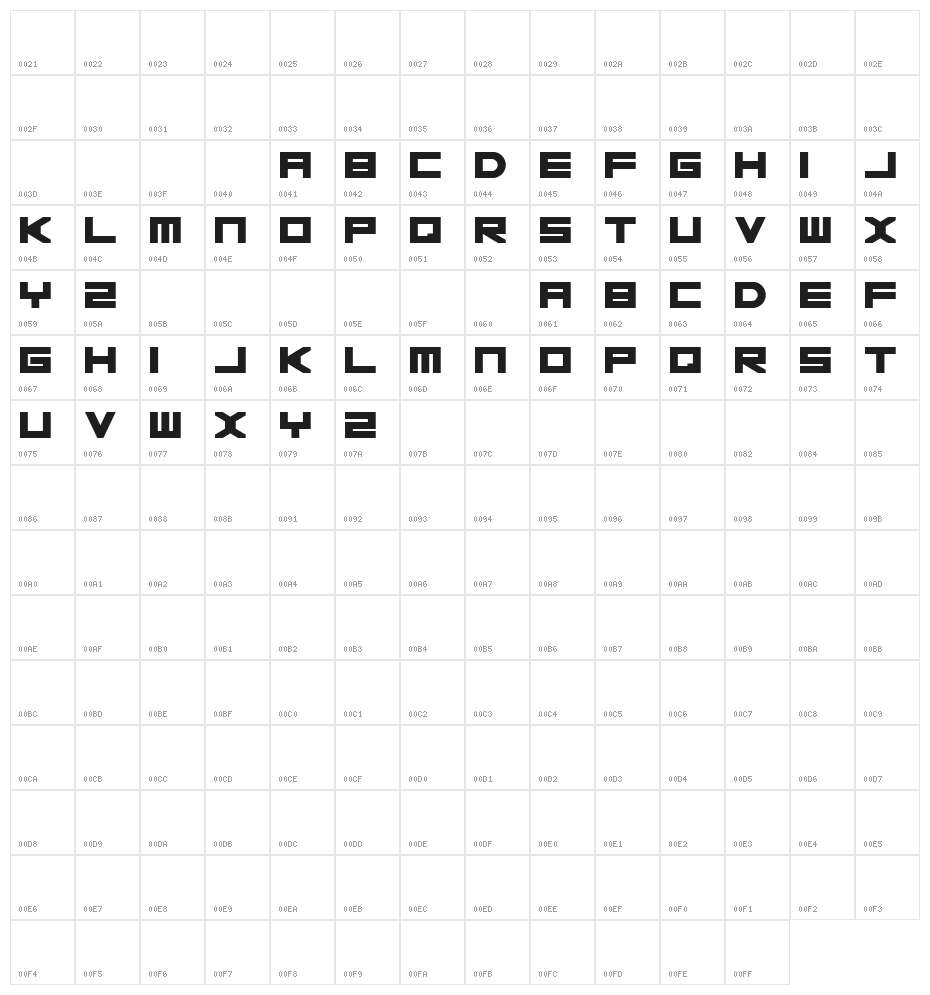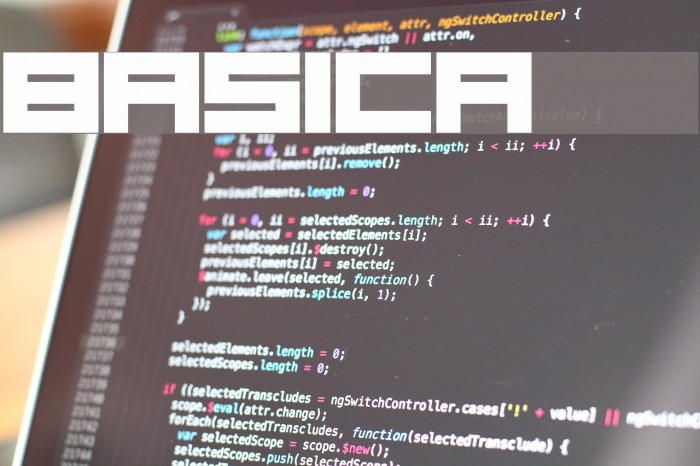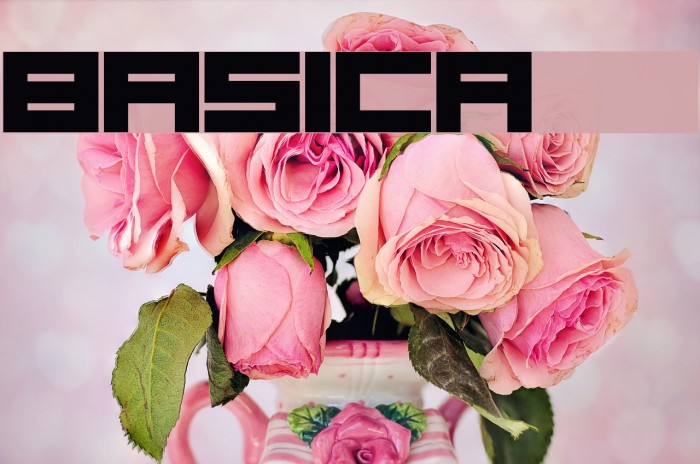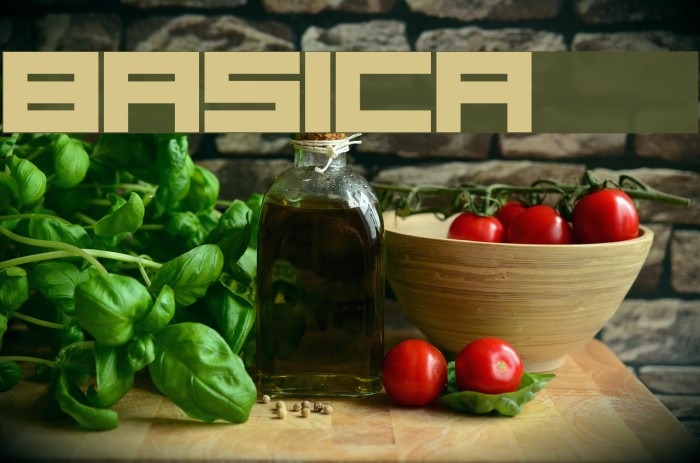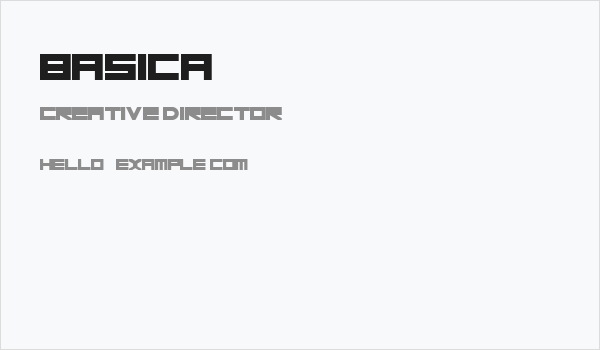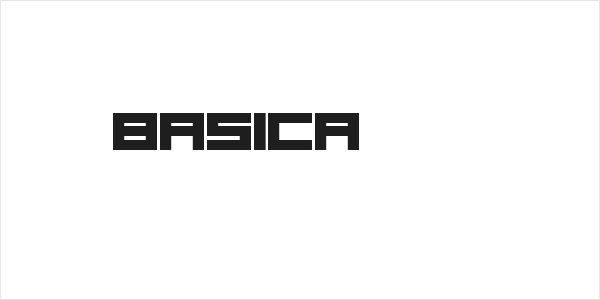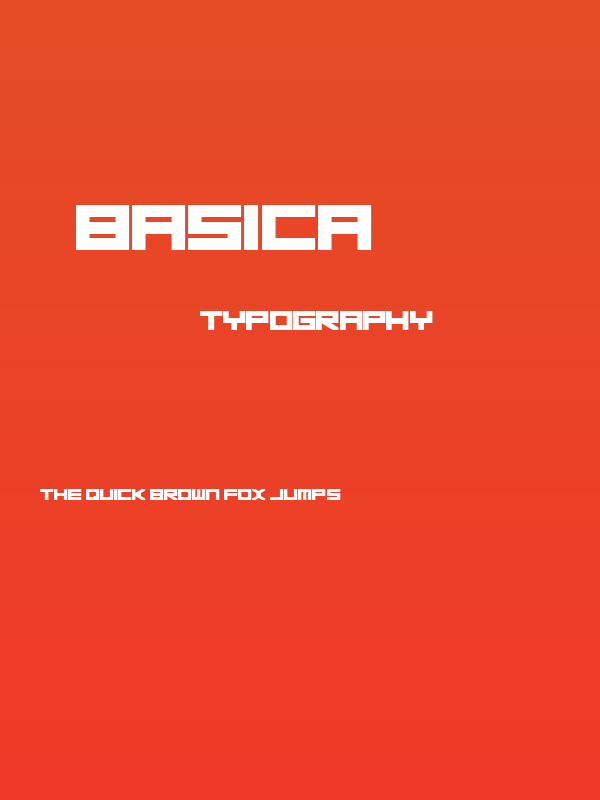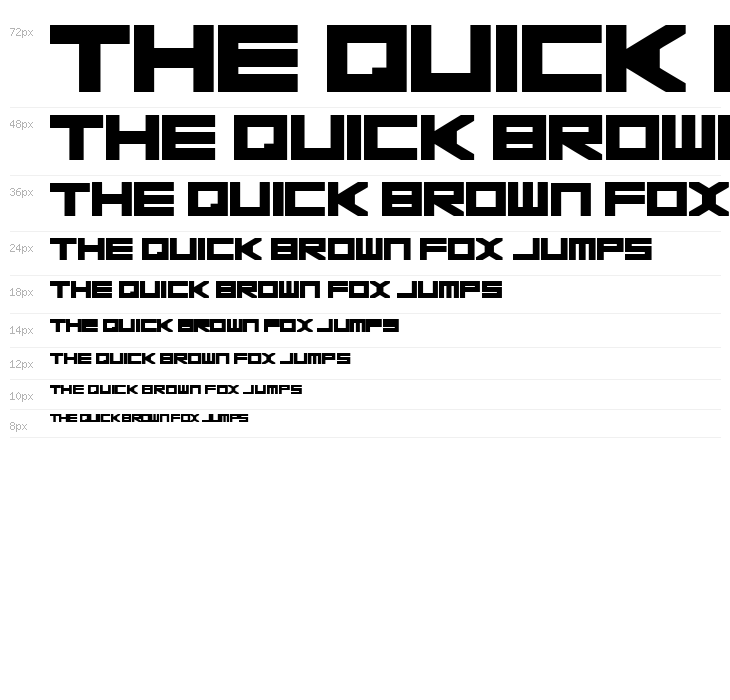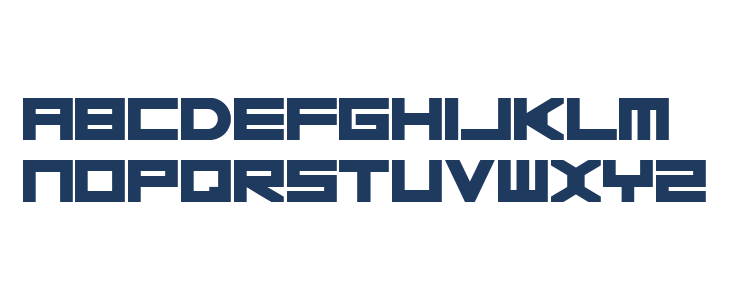
Basica 2.0 Font
Basica 2.0 Description
This font features a bold, geometric design with a futuristic and industrial feel. The characters are constructed with thick, uniform strokes, creating a strong visual impact. The angular shapes and sharp edges give it a modern and edgy appearance, making it suitable for attention-grabbing designs. The uppercase letters are particularly striking, with a blocky and robust structure that conveys strength and stability. The font maintains consistent proportions and spacing, ensuring readability while emphasizing its unique style.
Proposed ProjectsIdeal for technology branding, sci-fi posters, video game titles, and industrial-themed designs.